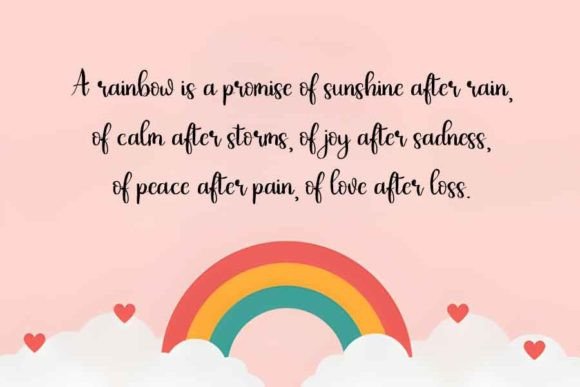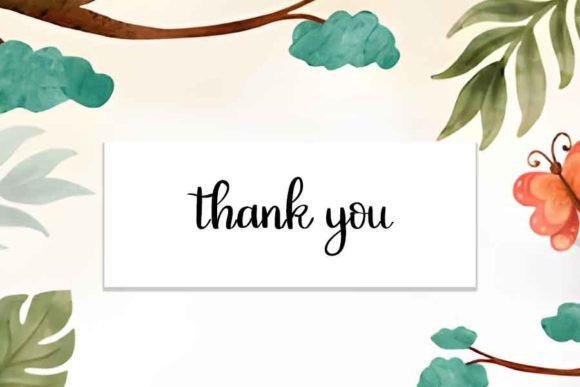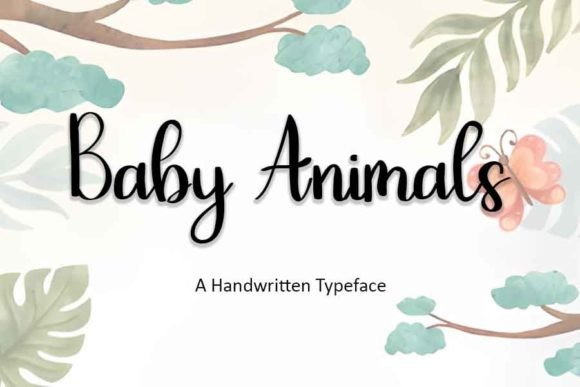
Baby Animals Font: The Ultimate Choice for Cute and Playful Designs
Are you looking for a font that can add a touch of warmth and playfulness to your designs? Look no further than the Baby Animals Font! This adorable handwritten font is perfect for designers and crafters who want to create cute and engaging content for children or anyone who loves whimsical designs.
What Makes Baby Animals Font So Special?
Baby Animals Font is a cute and friendly handwritten font that exudes warmth and playfulness. Its charmingly irregular letterforms and adorable doodle-like embellishments make it a standout from other fonts. The font’s unique design captures the innocence and whimsy of childhood, making it perfect for children’s books, invitations, and cute branding.
Characteristics of Baby Animals Font
- Cute and Friendly: The font’s playful design makes it perfect for creating cute and engaging content.
- Handwritten: The font’s handwritten style gives it a personal and warm touch.
- Irregular Letterforms: The font’s irregular letterforms add to its whimsical and playful feel.
- Doodle-like Embellishments: The font’s doodle-like embellishments make it perfect for adding a touch of fun and playfulness to designs.
Uses of Baby Animals Font
Baby Animals Font is perfect for a variety of design projects, including:
- Children’s Books: The font’s playful and whimsical design makes it perfect for children’s books, storybooks, and picture books.
- Invitations: The font’s cute and friendly design makes it perfect for creating invitations for children’s parties, baby showers, and other special occasions.
- Cute Branding: The font’s playful and whimsical design makes it perfect for creating cute and engaging branding for businesses that cater to children or families.
- Stationery: The font’s handwritten style makes it perfect for creating adorable stationery, including greeting cards, thank-you cards, and letters.
Why Designers and Crafters Love Baby Animals Font
Designers and crafters love Baby Animals Font for its unique and playful design. The font’s ability to add a touch of warmth and playfulness to designs makes it a popular choice for creating cute and engaging content. Here are some reasons why designers and crafters love Baby Animals Font:
- Easy to Read: The font’s clear and legible design makes it easy to read, even for young children.
- Versatile: The font’s playful design makes it perfect for a variety of design projects, from children’s books to cute branding.
- Unique: The font’s unique design sets it apart from other fonts, making it a great choice for designers who want to create something special.
Tips for Using Baby Animals Font
Here are some tips for using Baby Animals Font in your designs:
- Pair with Other Fonts: Pair Baby Animals Font with other fonts to create a unique and playful design.
- Use for Headings: Use Baby Animals Font for headings and titles to add a touch of playfulness to your designs.
- Add Embellishments: Add doodle-like embellishments to your designs to make them more playful and whimsical.
| Font Name | Baby Animals Font |
| Author | Emily Store |
Baby Animals Font is a cute and friendly handwritten font that is perfect for designers and crafters who want to create cute and engaging content. Its unique design, irregular letterforms, and doodle-like embellishments make it a standout from other fonts. With its versatility and playfulness, Baby Animals Font is perfect for a variety of design projects, from children’s books to cute branding. So why not give Baby Animals Font a try and add a touch of warmth and playfulness to your designs?